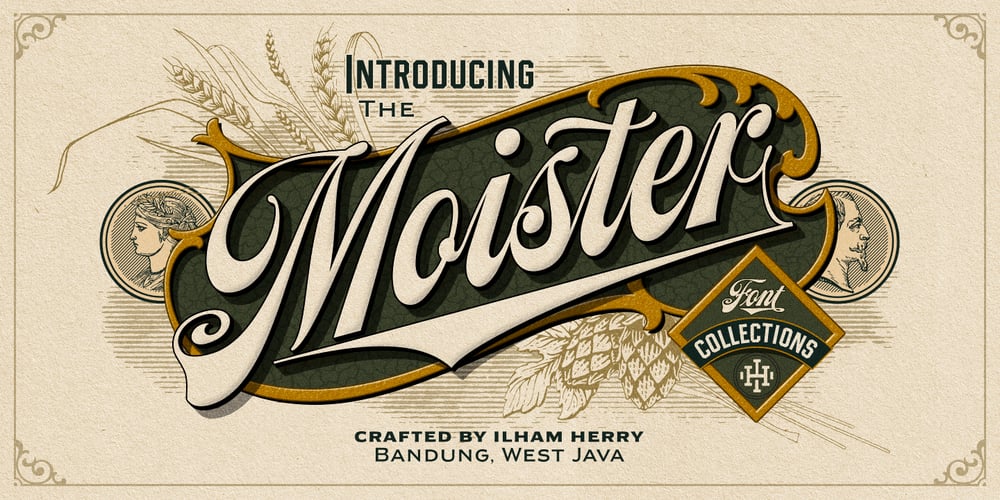
Moister
Moister font
Moister Font Family was designed by Ilham Herry and published by Ilham Herry. Moister contains 4 styles and family package options. Introducing Moister, inspired by beer labels in the old days. This collection comes with several styles: script, block, and expanded. It is possible to combine and options to create label designs, headlines, logotypes, signage, posters, greeting cards, letterheads, t-shirts and much more.